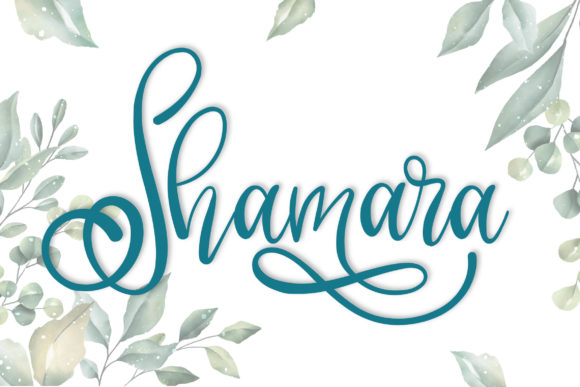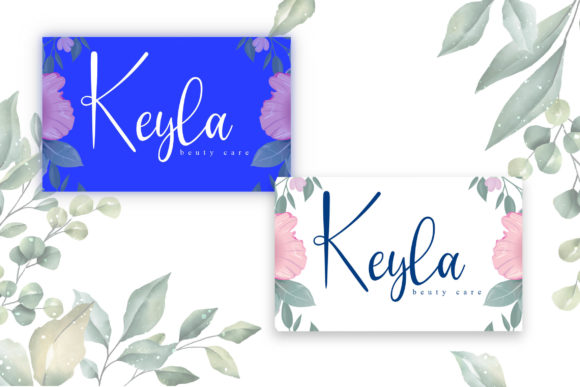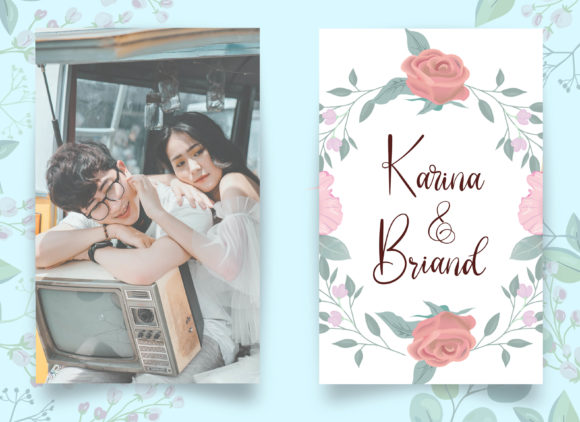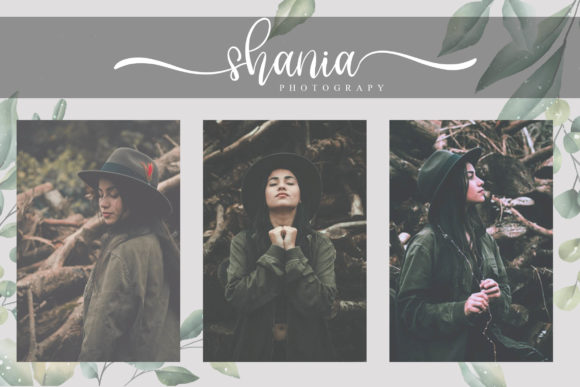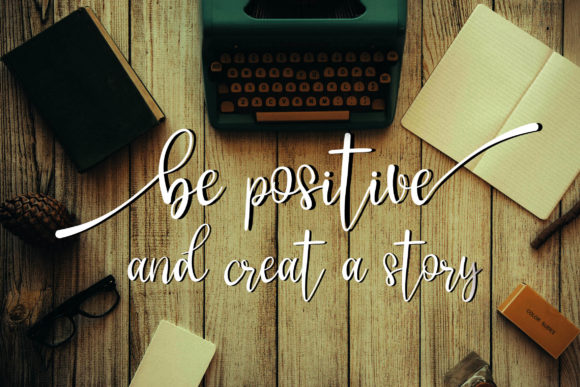
Shamara Font
About Shamara Font
Shamara is a beautiful and light script font with an amazing feel. It will turn any design or project into a stand out!